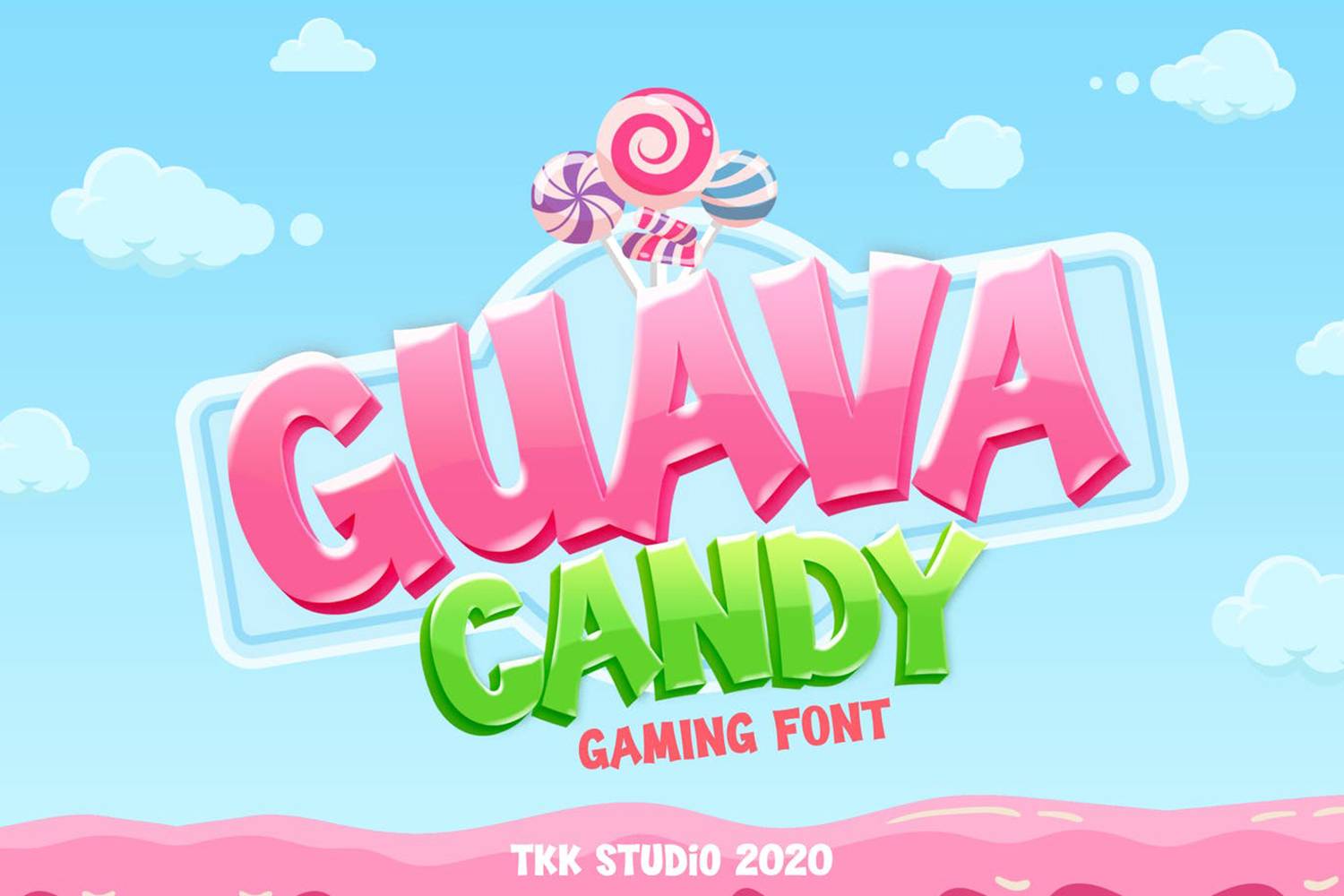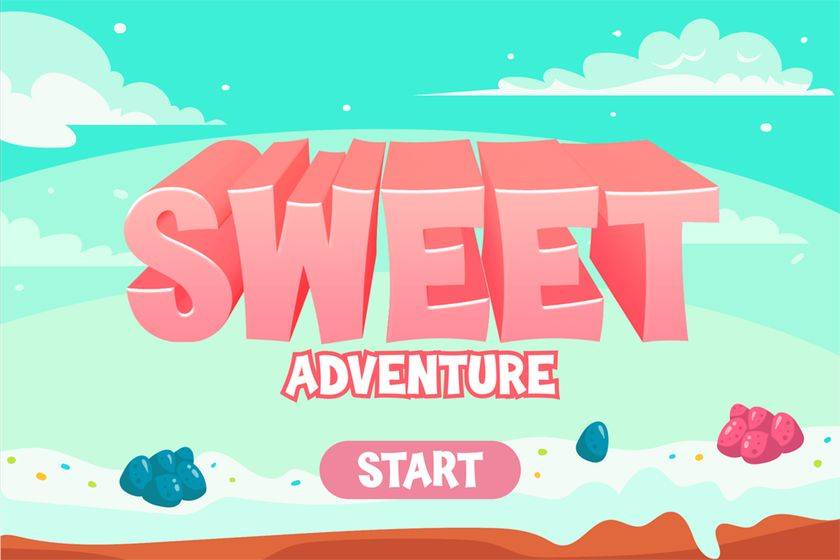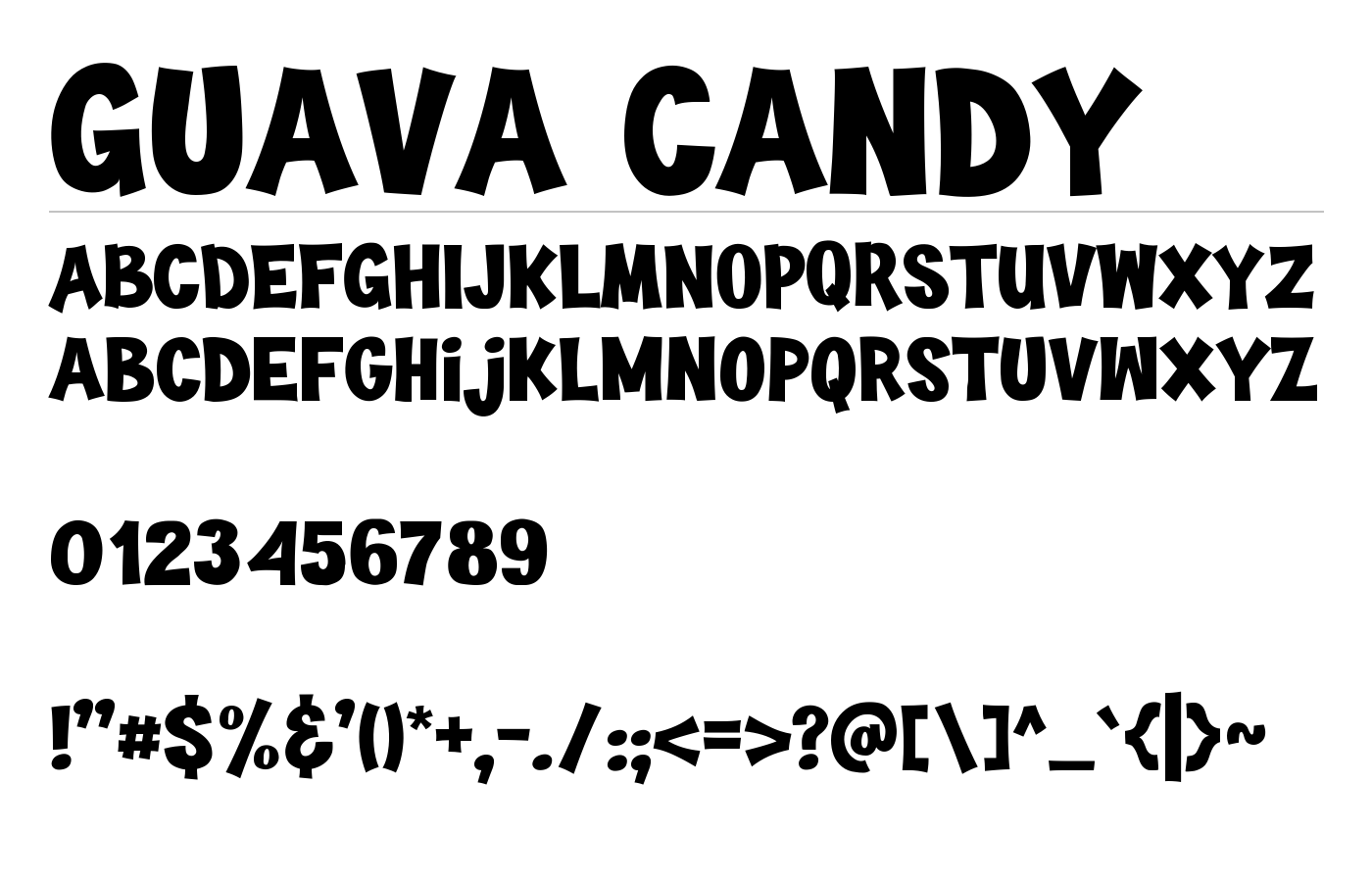
Guava Candy is a bold, playful sans serif font with a fun, slightly irregular shape that gives it a lively and approachable feel. Its chunky, wide letterforms with subtle curves and quirky details make it perfect for eye-catching headlines, children's designs, or casual branding that wants to convey energy and friendliness. This font works well where a cheerful and informal vibe is desired, adding personality without losing readability.
Guava Candy Font
About Guava Candy Font